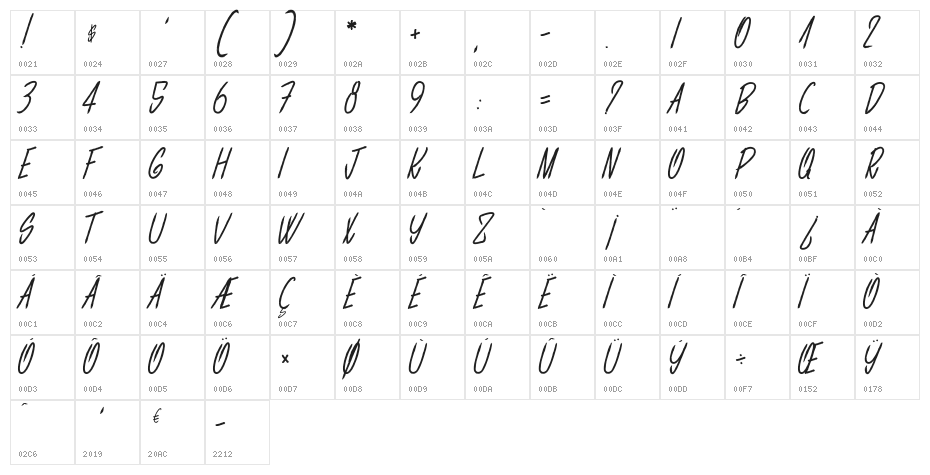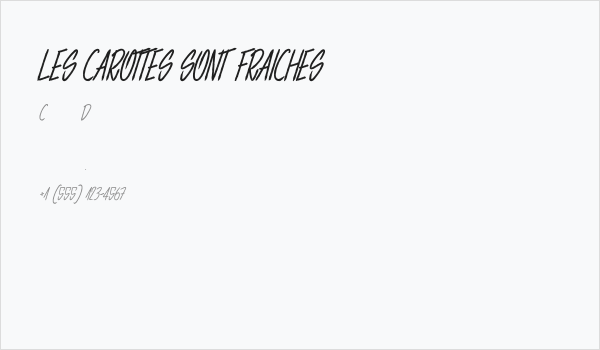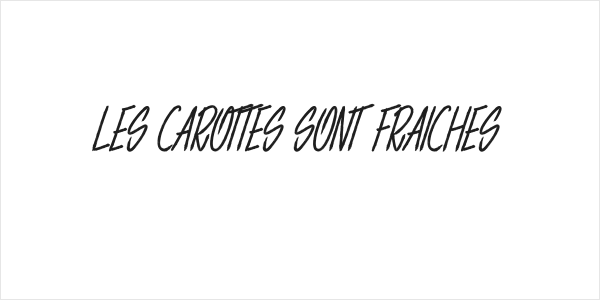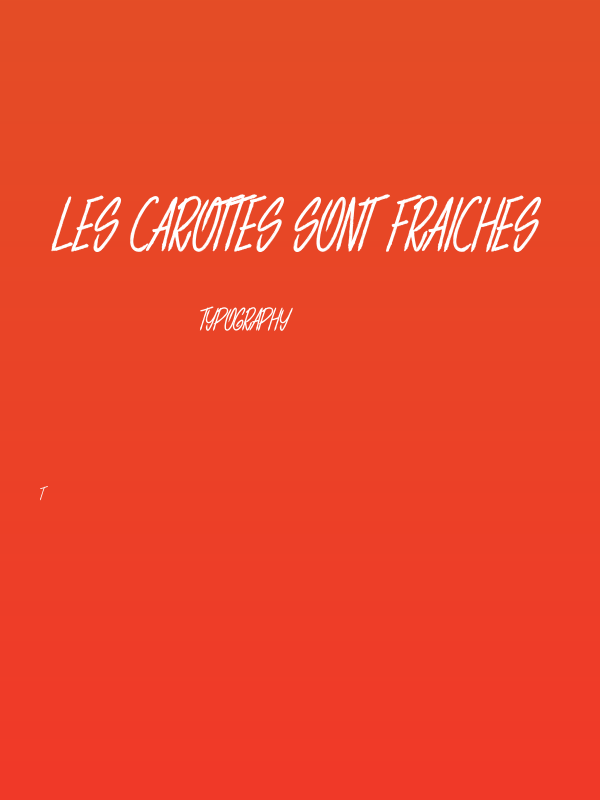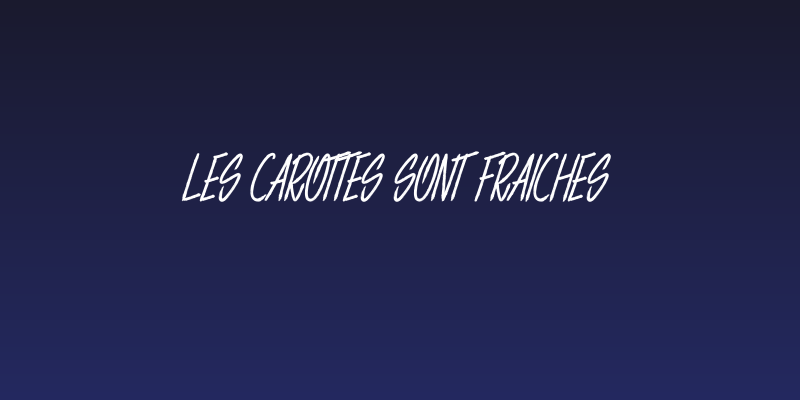
LES CAROTTES SONT FRAICHES Font
LES CAROTTES SONT FRAICHES Description
This font features a dynamic and energetic script style, characterized by its fluid, handwritten appearance. The letters are slightly slanted, adding a sense of motion and liveliness. The strokes are bold and confident, with varying thickness that gives the font a high contrast. The uppercase letters are particularly tall and elongated, while the lowercase maintains a consistent flow. The numbers and special characters follow the same energetic style, making them cohesive with the alphabet. This font is perfect for projects that require a personal touch or a sense of urgency and excitement.
| Proposed Projects | Ideal for branding, packaging, event invitations, and social media graphics. |